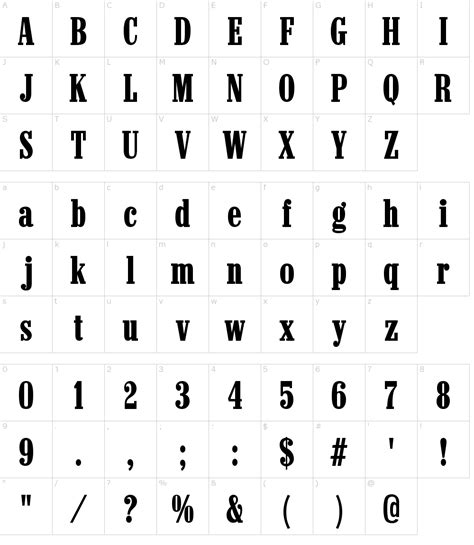
Marlboro Font
Web generate marlboro font generator & download is available free at fontbolt. Marlboro font is a classy, elegant, and unique slab serif typeface and it’s suitable for a blog header, posters, name card, design title,. Web marlboro font is a great tool for extensive designing approaches. Download free for commercial use. Web use the text generator below to convert your text into graphics online with marlboro font, you can then save the image or click on the embed button to get links to embed the image on the web. Try our text generator and create cool graphics for marlboro font, then you can save the font image to your pc, mac, linux, ios and.
Web use the text generator below to convert your text into graphics online with marlboro font, you can then save the image or click on the embed button to get links to embed the image on the web. Web marlboro font is a great tool for extensive designing approaches. Download free for commercial use. Web use the text generator below to convert your text into graphics online with marlboro font, you can then save the image or click on the embed button to get links to embed the image on the web. Marlboro font is a classy, elegant, and unique slab serif typeface and it’s suitable for a blog header, posters, name card, design title,. Web generate marlboro font generator & download is available free at fontbolt. Try our text generator and create cool graphics for marlboro font, then you can save the font image to your pc, mac, linux, ios and.